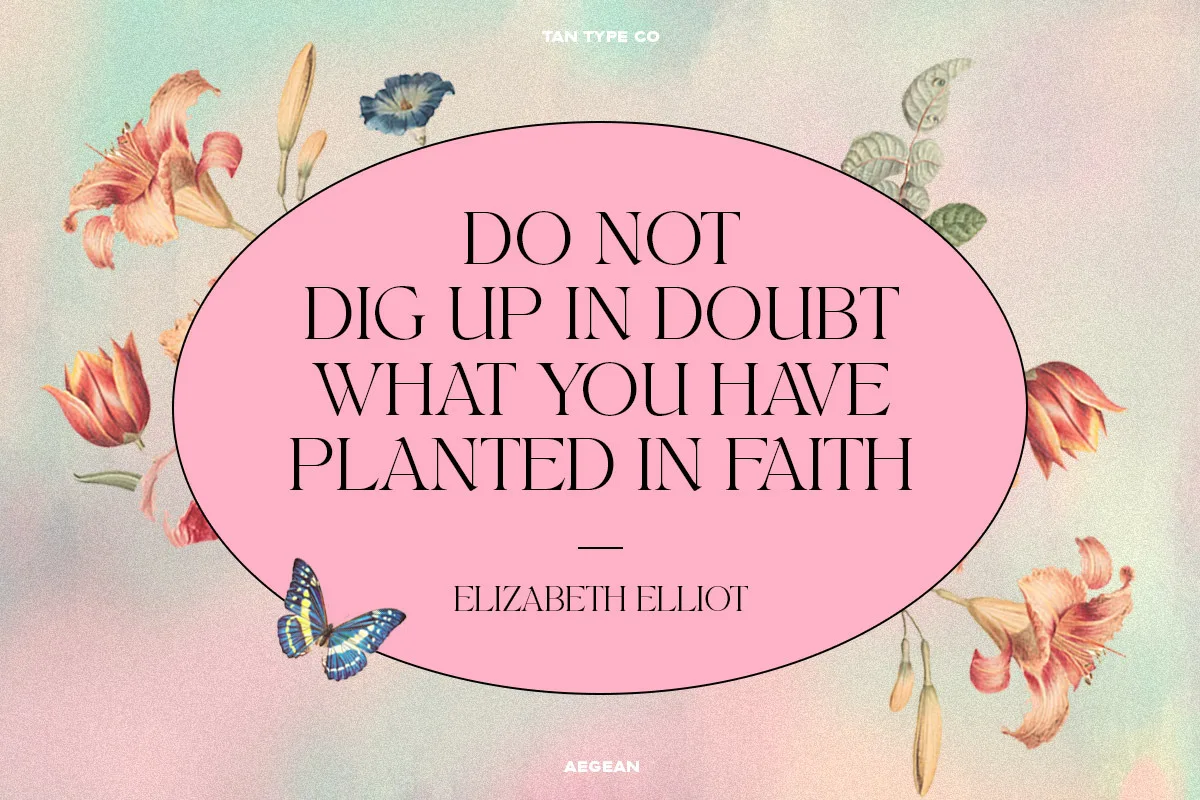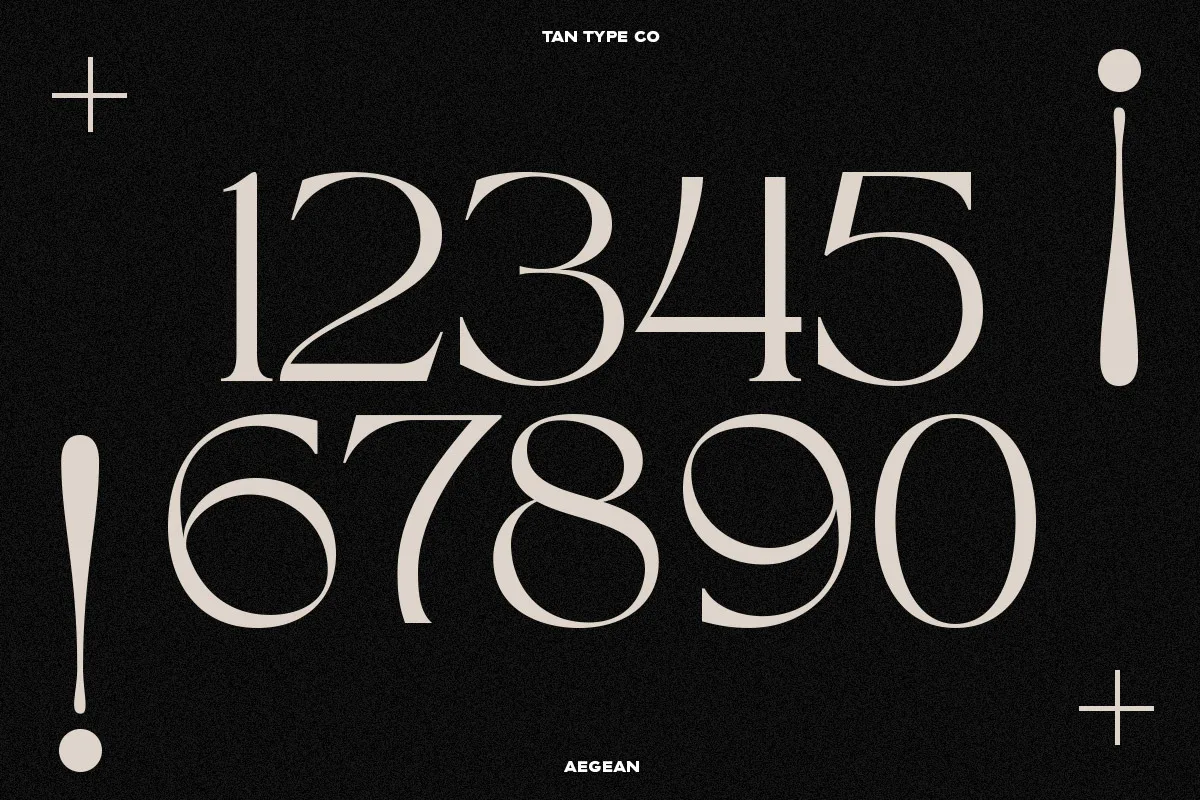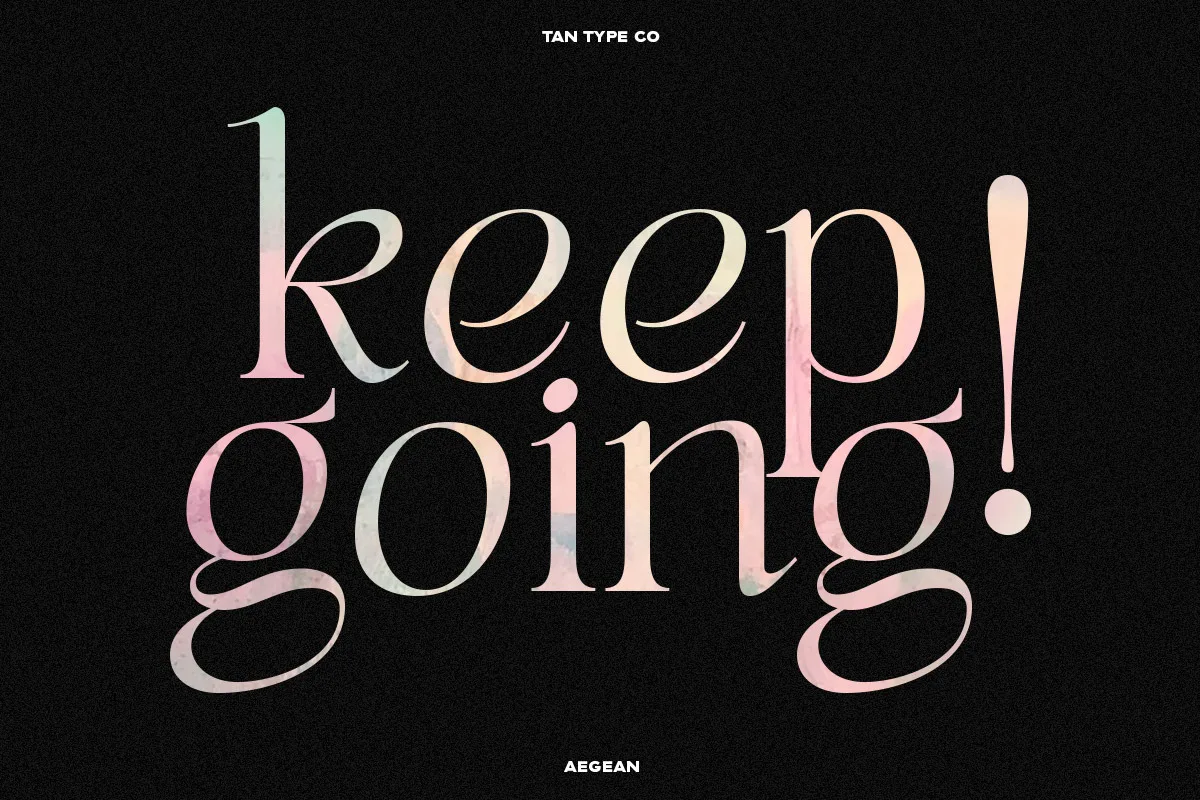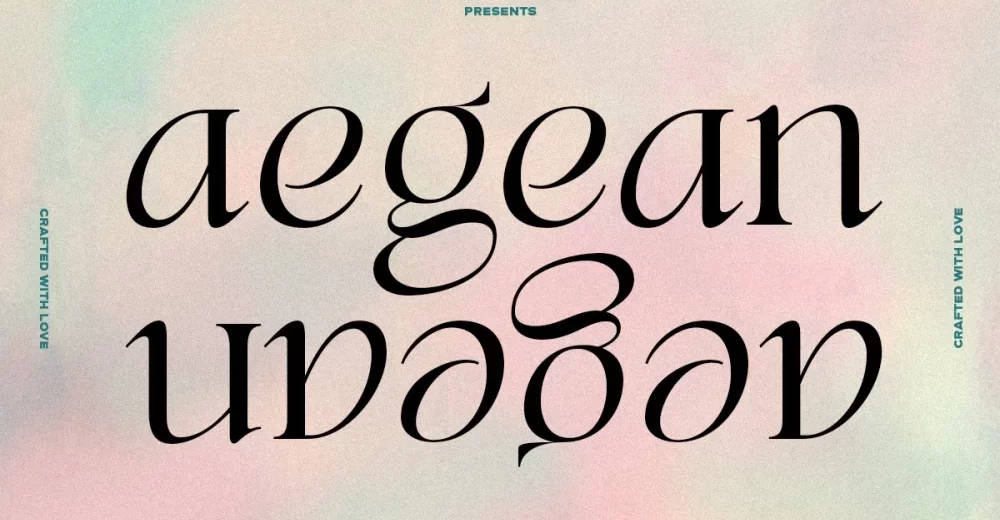
TAN – AEGEAN is an elegant display serif font. It’s classic and versatile with a touch of playfulness, it’s perfect for any of your design needs. This font is very suitable for your various needs such as branding projects, logos, social media posts, advertisements, labels, product packaging, stationery, and any project.